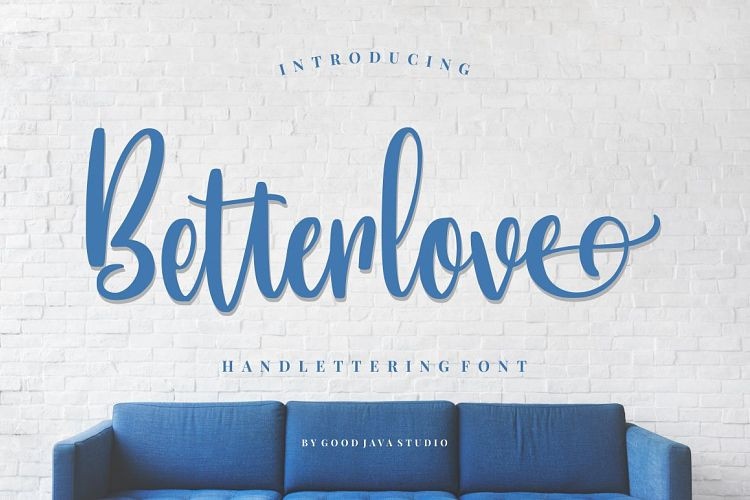
Betterlove Font
Betterlove Font is perfect for romantic wedding invitations, valentine's day marketing, love-themed greeting cards, couple photography branding, relationship coaching materials, romance novel covers, dating app interfaces, and heartfelt personal correspondence where emotional connection is paramount.
What makes Betterlove Font so exciting is its ability to visually express genuine emotion and romantic sentiment through carefully crafted letterforms that speak directly to the heart while maintaining elegant readability. The flowing characters create an intimate atmosphere that resonates with audiences seeking authentic emotional connection.
The Betterlove Font family includes regular, bold, and script variants, with decorative flourishes and heart-inspired ornaments that provide designers with romantic typographic elements for creating memorable love-themed design projects and emotional brand experiences.
This enchanting typeface captures the essence of romantic expression, combining emotional authenticity with sophisticated design principles. The Betterlove Font Free Download gives designers access to typography that communicates love, passion, and deep emotional connection.
The font's gentle curves and flowing connections create harmonious text rhythms that mirror the natural cadence of romantic expression and heartfelt communication. Each letterform has been designed to evoke warmth and tenderness while maintaining professional quality and versatility.
Betterlove Font excels in creating memorable brand experiences that touch hearts and create lasting emotional impressions. The typeface's romantic character makes it ideal for businesses and individuals who want to communicate genuine care and emotional authenticity.
From wedding planners to relationship counselors, this font brings emotional depth that connects with audiences on a personal level. The versatile design works beautifully for both intimate personal projects and commercial applications targeting romantic and emotional market segments.